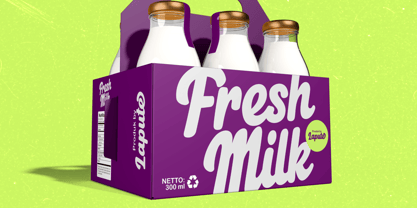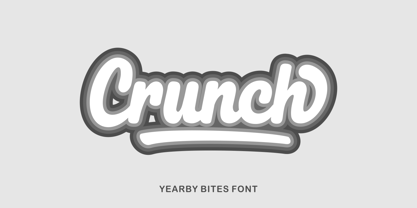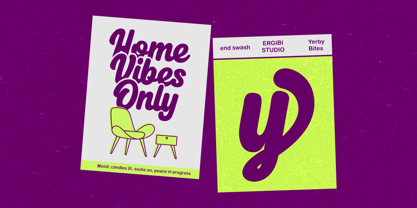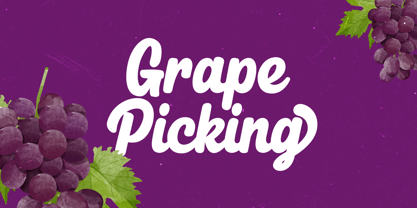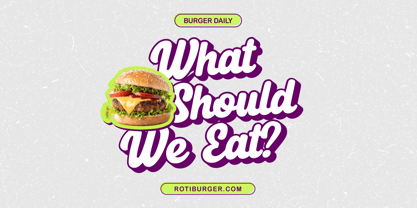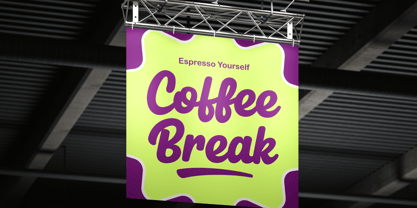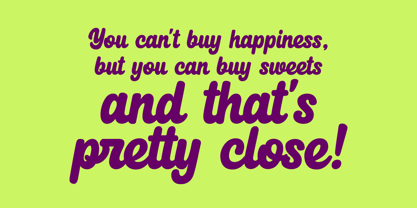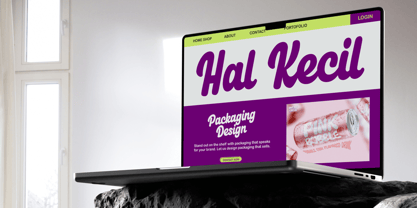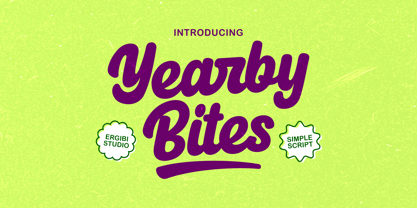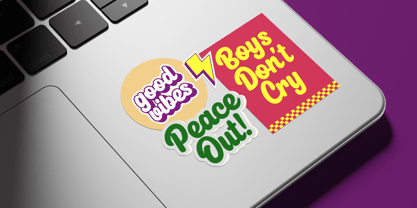
Yearby Bites
by Ergibi Studio
The Yearby Bites Font Family was designed by Riyadh Rahman and published by Ergibi Studio. Yearby Bites contains 1 styles. More about this family
Yearby Bites Font is a clean and friendly script typeface designed to bring warmth and personality to your creative projects. With smooth curves and a handcrafted feel, this font adds a touch of charm without being overwhelming.
Perfect for food packaging, product labels, logos, and social media content, Yearby Bites offers a casual yet polished look that connects easily with audiences. Its legibility and gentle character make it ideal for both branding and display use.
Whether you're designing for a bakery, café, or lifestyle brand, Yearby Bites Font brings a delicious balance of simplicity and style — making your packaging and visuals feel inviting and memorable.